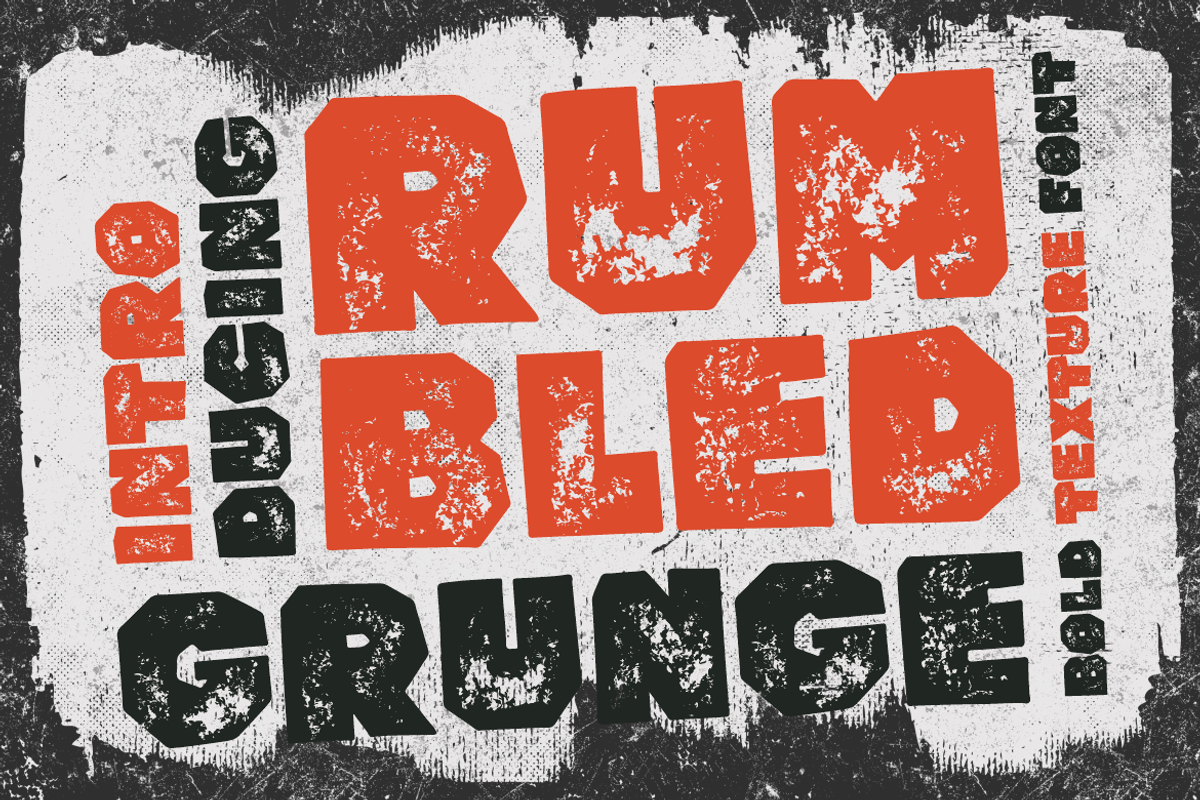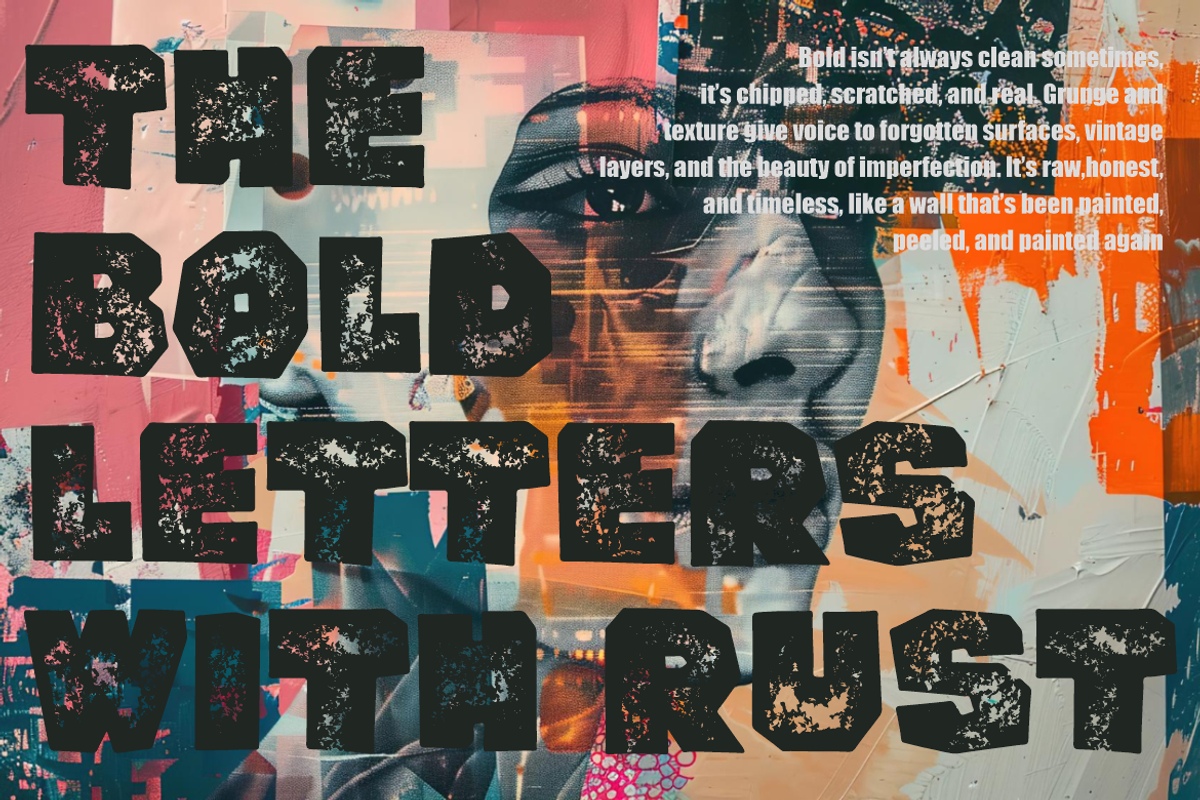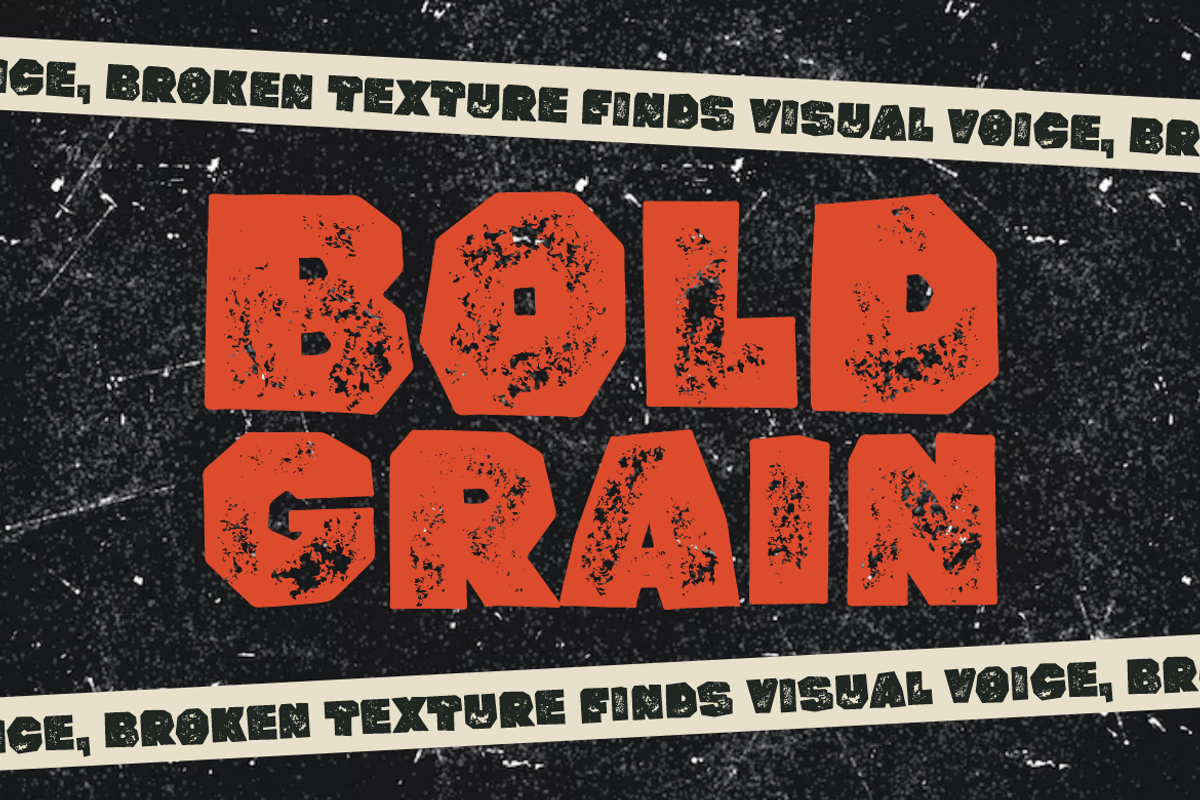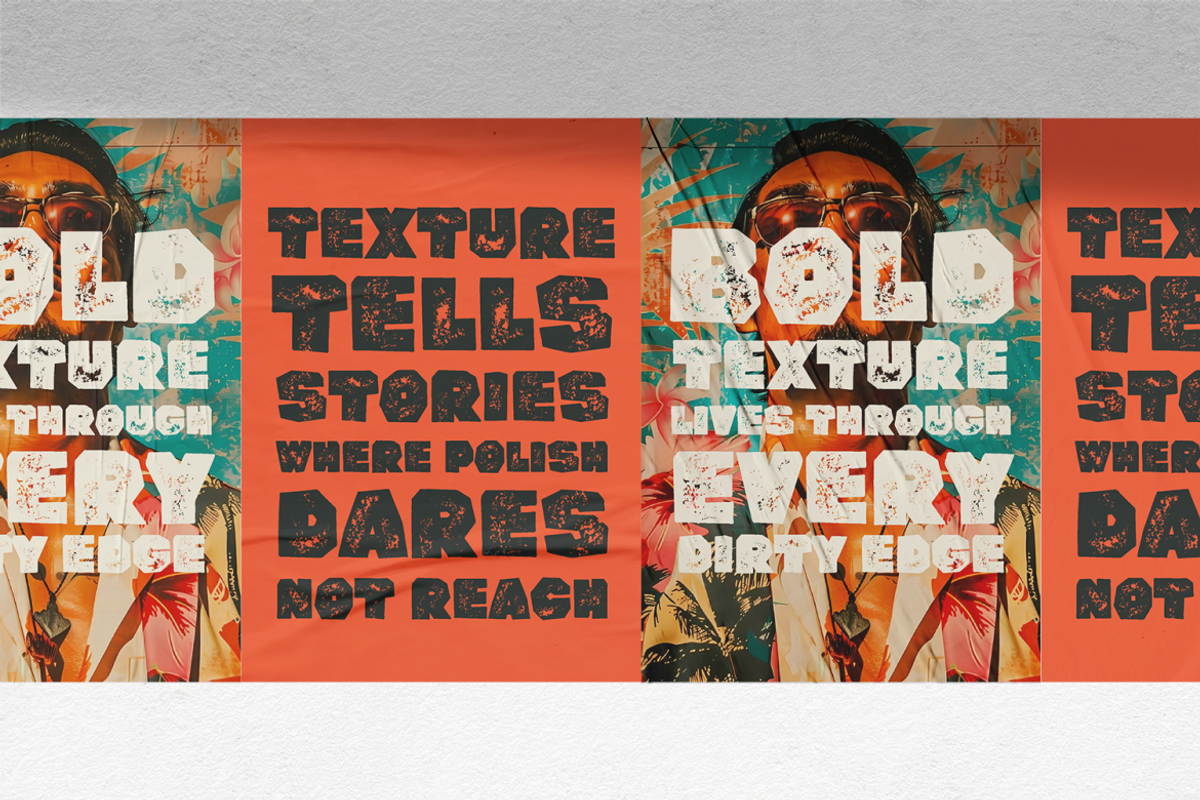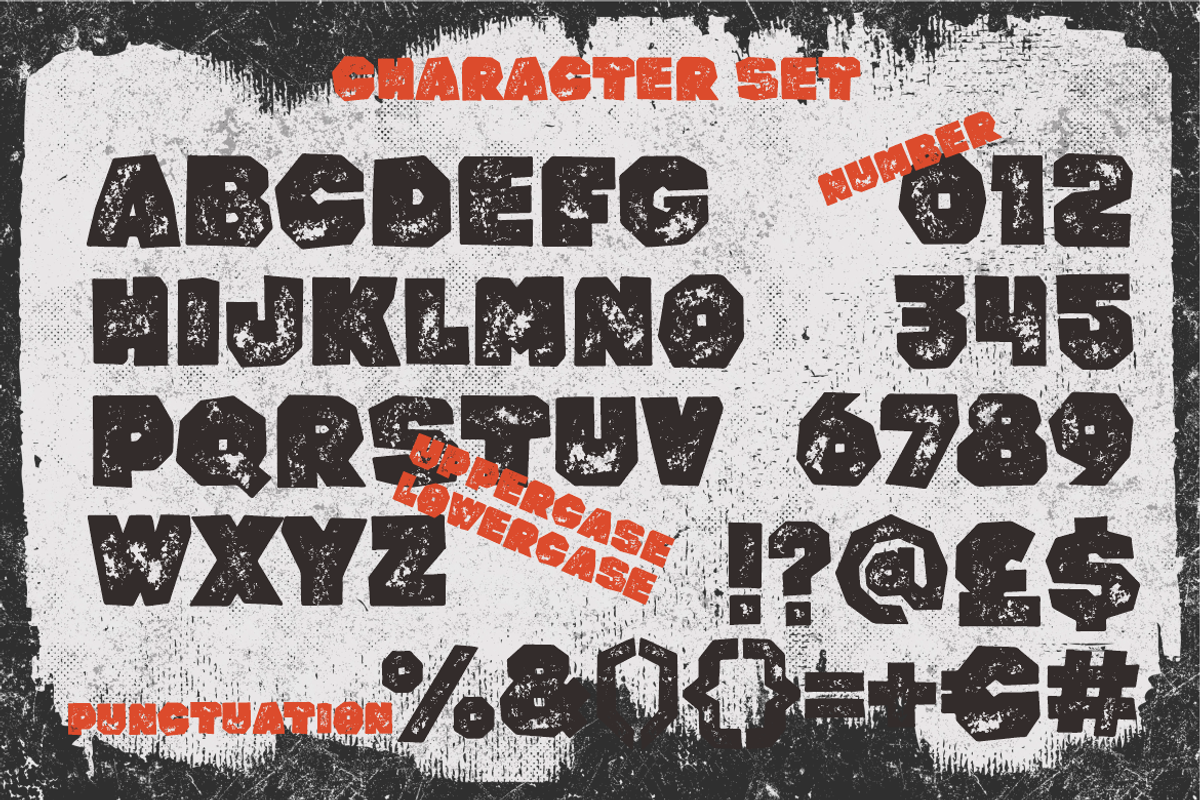
Rumbled Grunge - Bold Vintage Textur
Rumbled Grunge is a bold textured display font designed to scream with grit and vintage character. Every letterform is carefully crafted with a rugged, distressed texture that mimics worn-out paint, peeled posters, and weathered urban surfaces. This font isn’t clean—it's loud, chaotic, and unapologetically raw. The heavy, blocky construction of each character is balanced by the expressive decay that adds soul to every letter.
Perfect for bold typographic statements, Rumbled Grunge is ideal for posters, branding, packaging, album covers, and editorial design. It pairs especially well with street art, rock band visuals, or retro grunge aesthetics. The font includes uppercase, numerals, and essential punctuation, giving designers flexibility for bold headlines or textured typography experiments. Whether you’re designing an album sleeve, retro fashion label, or rebellious movie title, this font demands to be seen, not whispered.